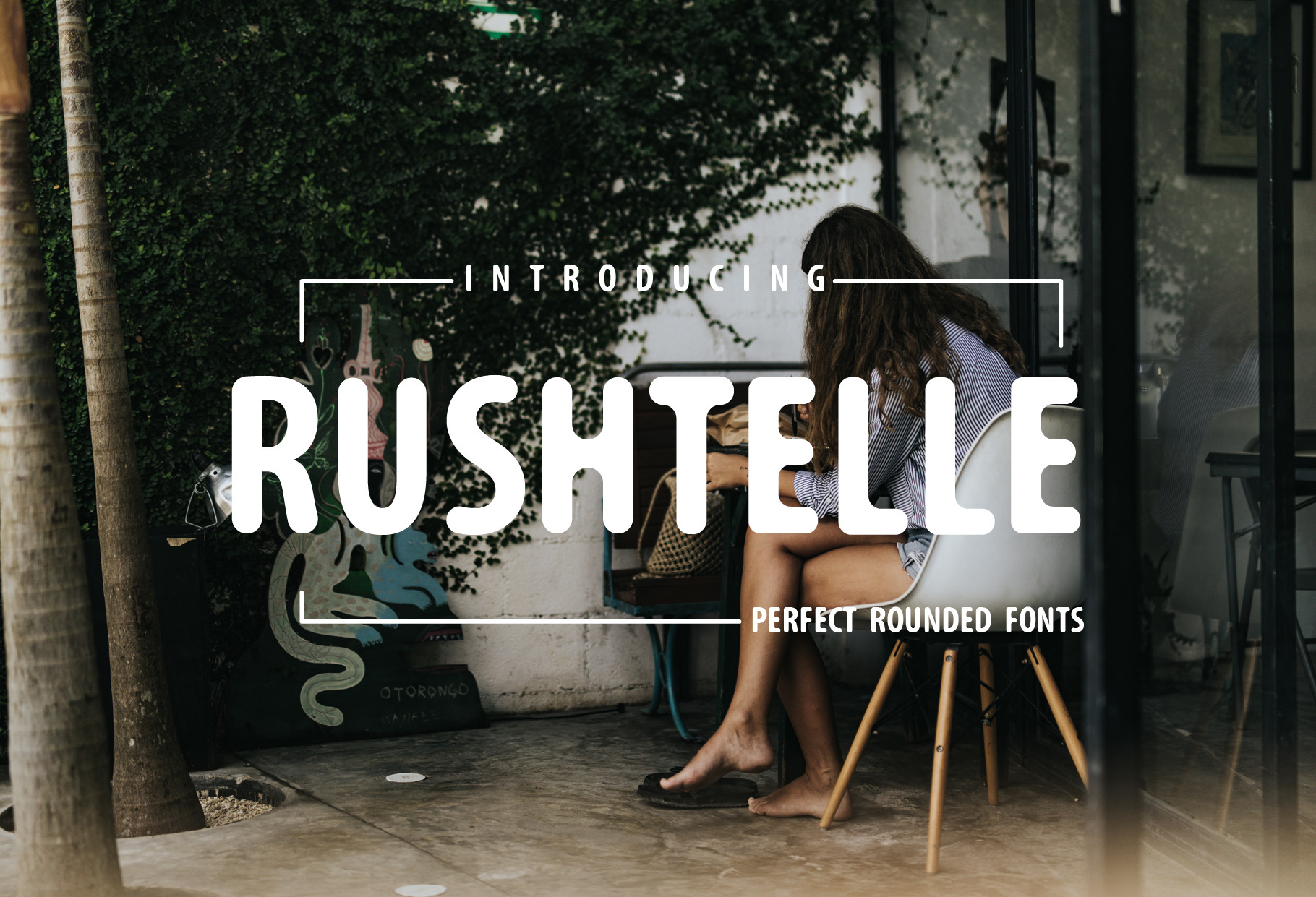
Rushtelle Font | Perfect Rounded
Rushtelle Perfect Rounded Fonts.
Create bold, perfect headlines and elegant designs. perfect look for logos, business cards, wedding invitations, quotes, advertisements, video title and more. Create something perfect with Rushtelle